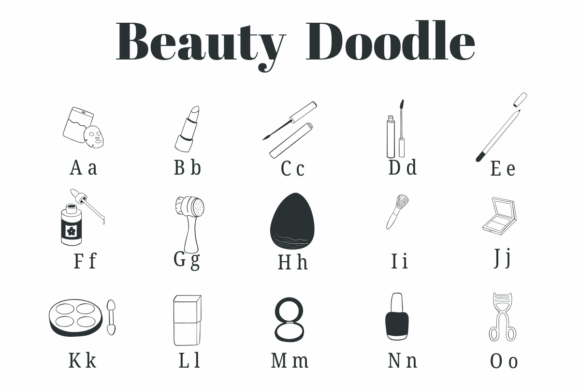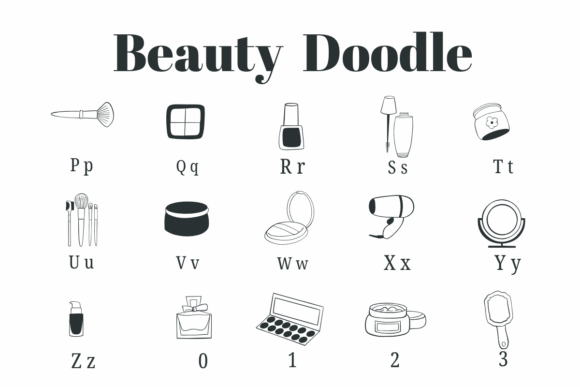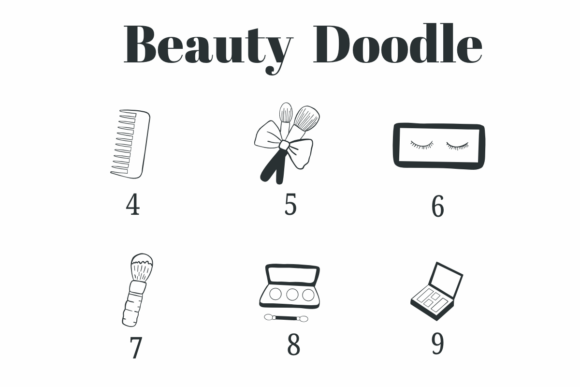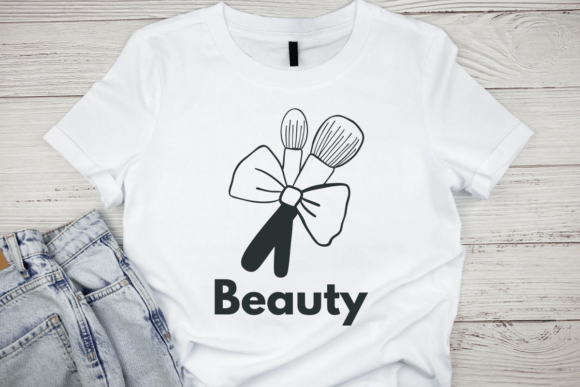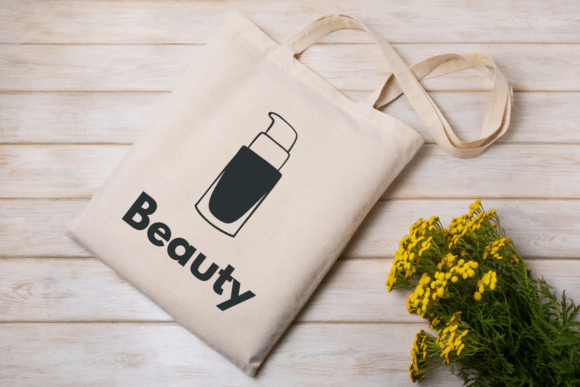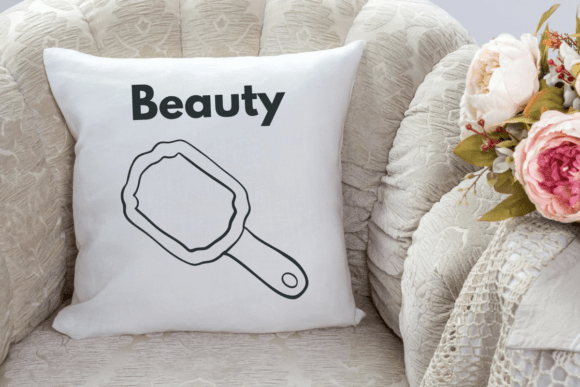
Introduction to Beauty Doodle Font
Beauty Doodle is a lovely dingbats font.
Add it to your creative projects and you will love the results .
Key Features of Beauty Doodle Font
Why Choose Beauty Doodle Font?
Beauty Doodle Font offers exceptional quality and versatility, making it a valuable addition to your design toolkit. Whether you’re creating for personal projects or commercial use, Beauty Doodle Font delivers professional results.